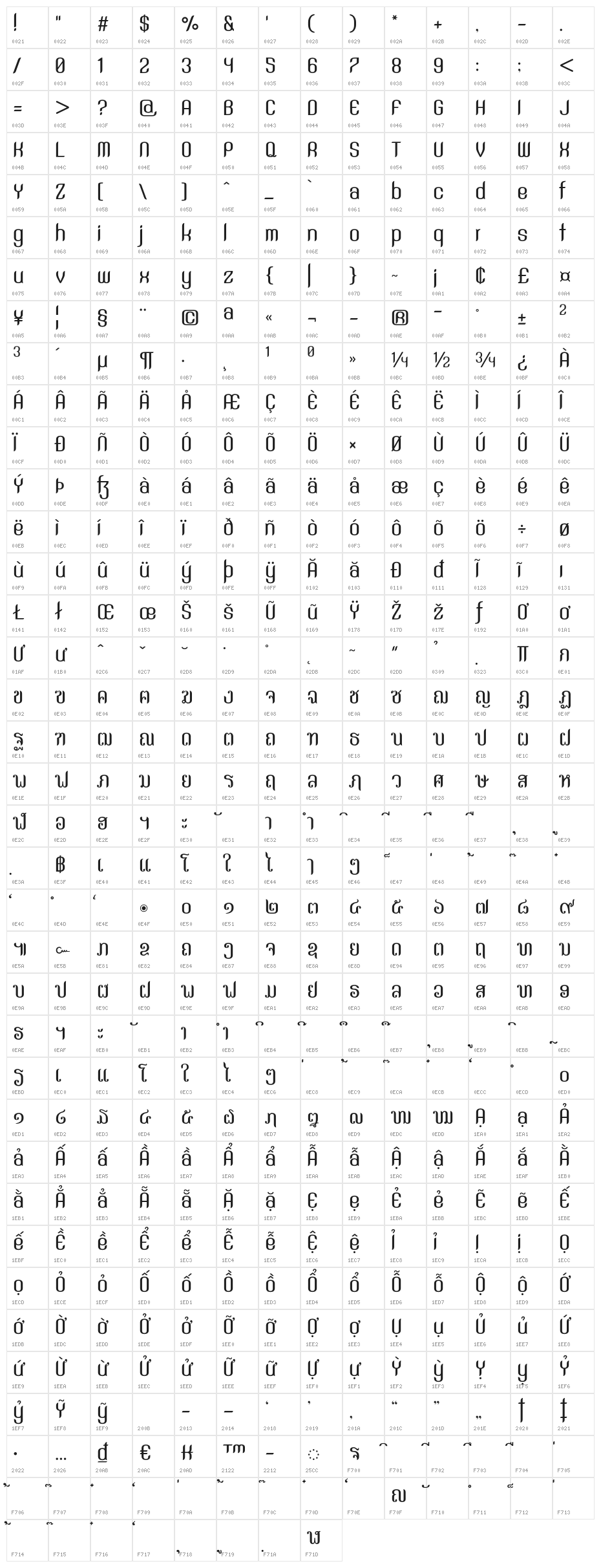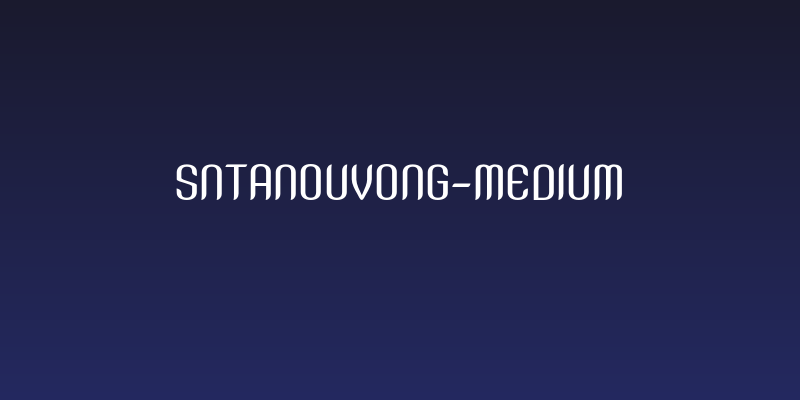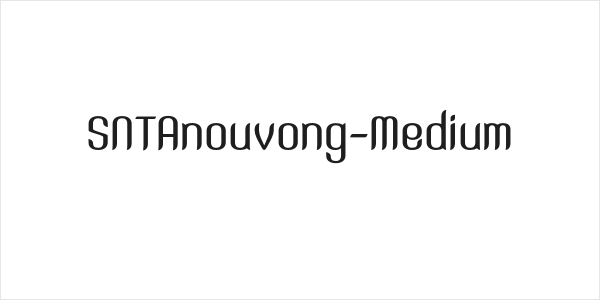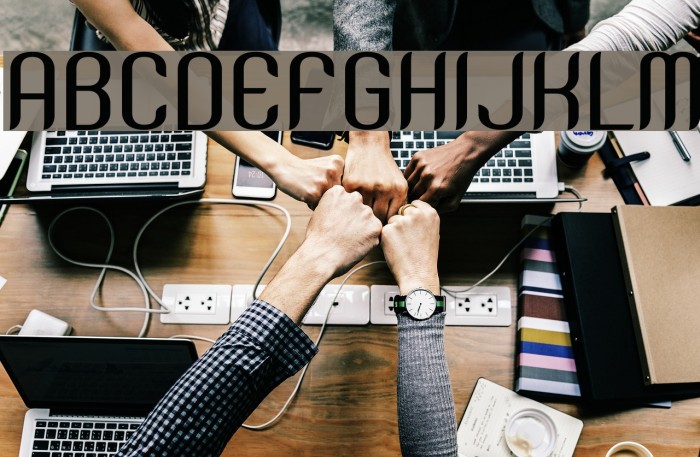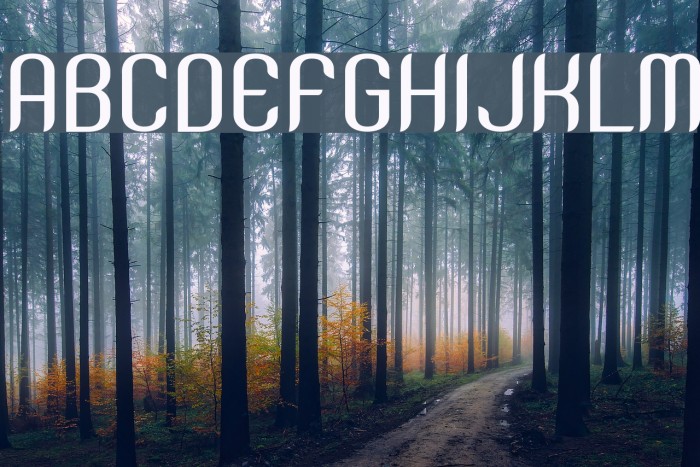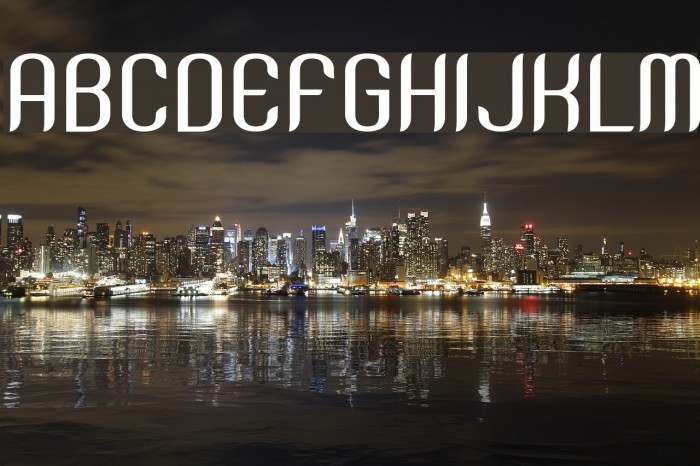
SNTAnouvong-Medium Font
SNTAnouvong-Medium Description
This font features a modern and sleek design with rounded edges and a geometric structure. The characters are uniform in width, giving it a monospaced appearance, yet they maintain a unique style with slightly elongated verticals and subtle curves. The uppercase letters are bold and assertive, while the lowercase letters maintain a consistent flow, making it suitable for both headlines and body text. The numerals are clear and distinct, ensuring readability. Special characters are designed with the same attention to detail, providing a cohesive look across all glyphs.
| Use Case | Headlines, Body text, Logos |
| Proposed Projects | Ideal for tech branding, modern web design, and innovative product packaging. |